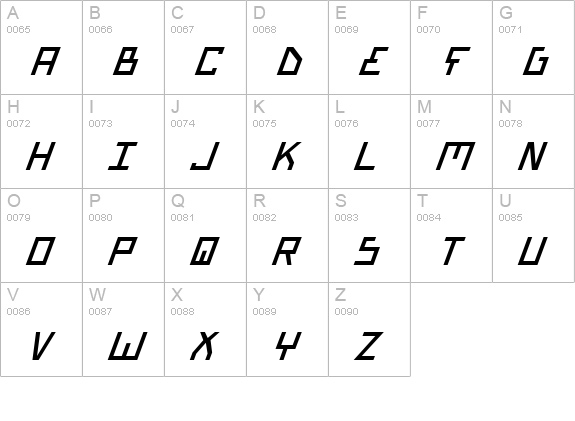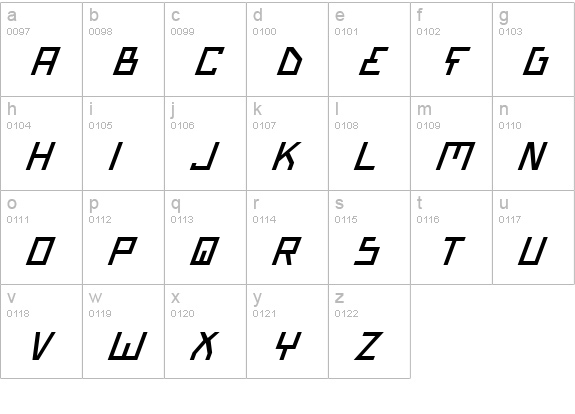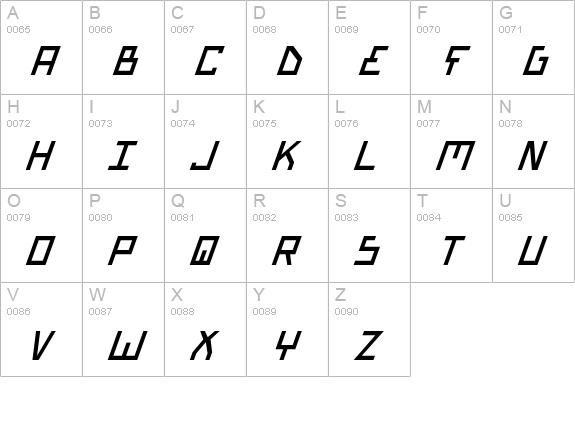
Bionic Type Italic Font Details
Bionic Type Italic is a distinctive, italic variant in the Bionic typeface family \xE2\x80\x94 well suited to design and typography projects.
The Bionic Type Italic font is a sleek and modern typeface that combines futuristic elements with a touch of elegance. Its dynamic, italic design gives a sense of movement and energy, making it perfect for projects that require a bold and cutting-edge look. The sharp, angular letterforms of this font exude a sense of strength and resilience, making it ideal for headlines, logos, and branding materials. Best of all, the Bionic Type Italic font is available for free download at FontsMarket.com. Whether you're a designer looking to add a unique flair to your projects or a business owner in need of a fresh new font for your marketing materials, this font is sure to make a statement. Don't miss out on the opportunity to enhance your designs with this striking and versatile typeface. Download the Bionic Type Italic font today and see the difference it can make in your creative endeavors.